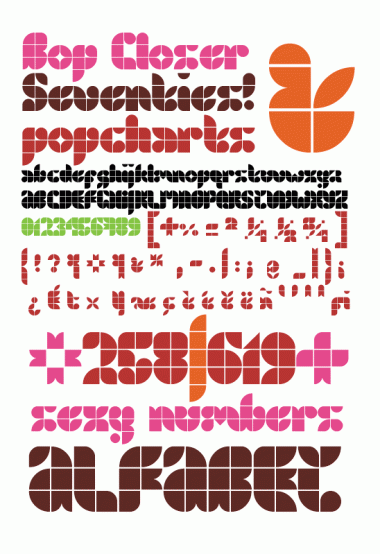
Made this version of Bop Carre a while ago, but kept it in the drawer since the letterspacing trick didn't work back than. I started my characters one grid square left from the origin to make them stick together. Worked in the structing window, not in the truetype.
But: halelujah! those wonderful people behind FontStruct fixed this so here we are: Bop as it should be: cosy & close.
One tricky thing though: I also used the advanced features to create the gaps between the blocks in each character. And see: in the truetype version there are gaps between the blocks within each character, but not between two adjacent characters That is easily solved by adding a tracking of +10 in Indesign.
wow, i didn't think it's THAT good legible!
huge compliments for this font, beautiful!
Might be really nice with each letter in a different color too.